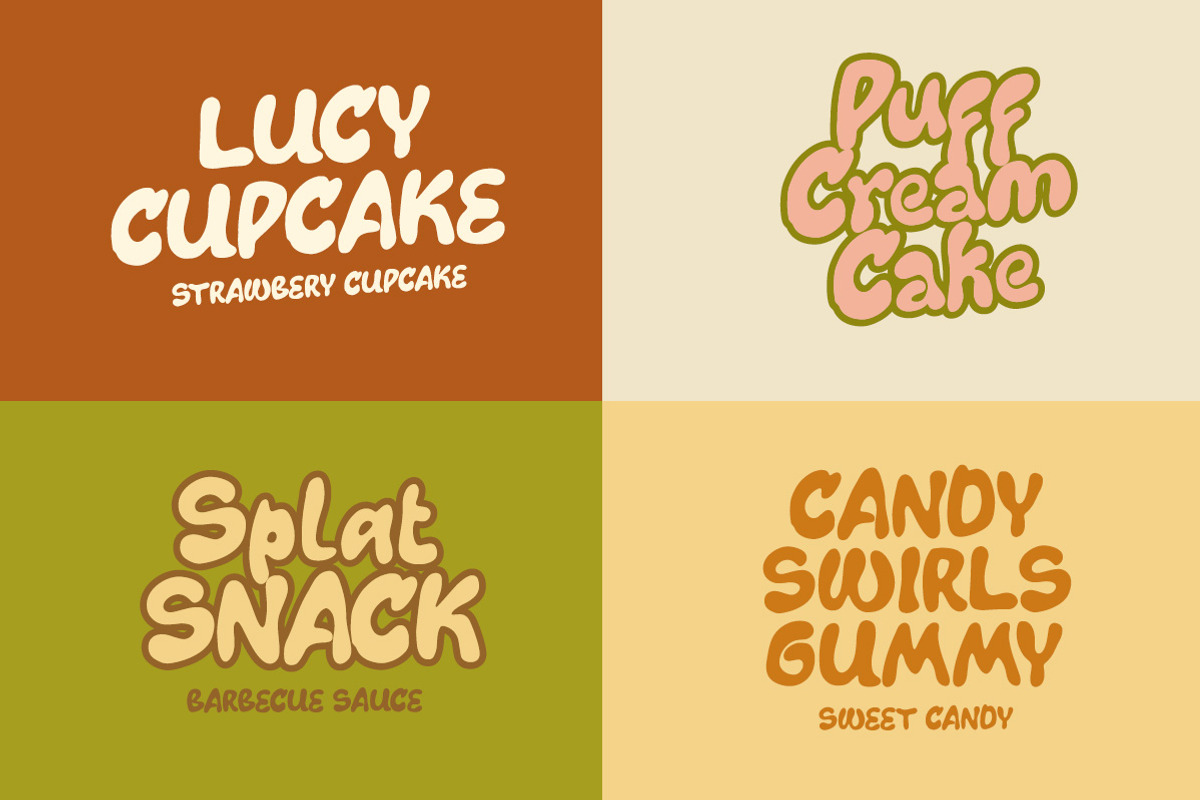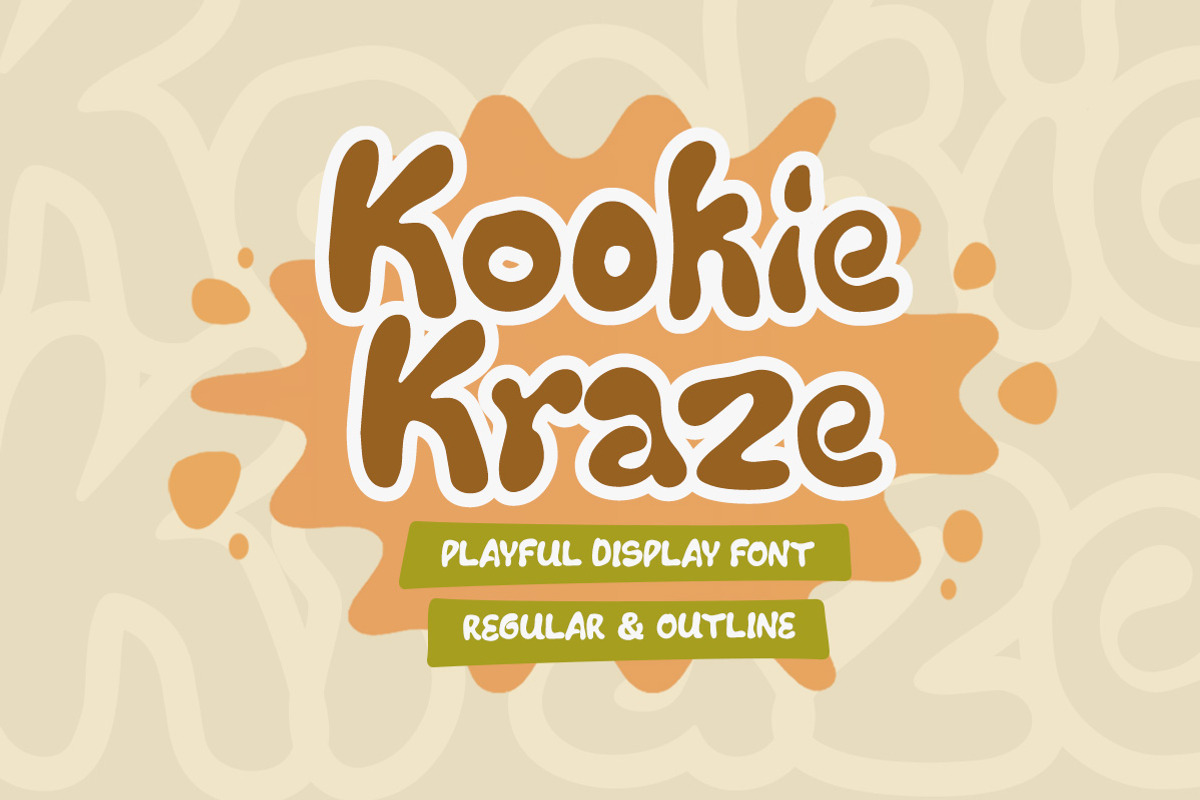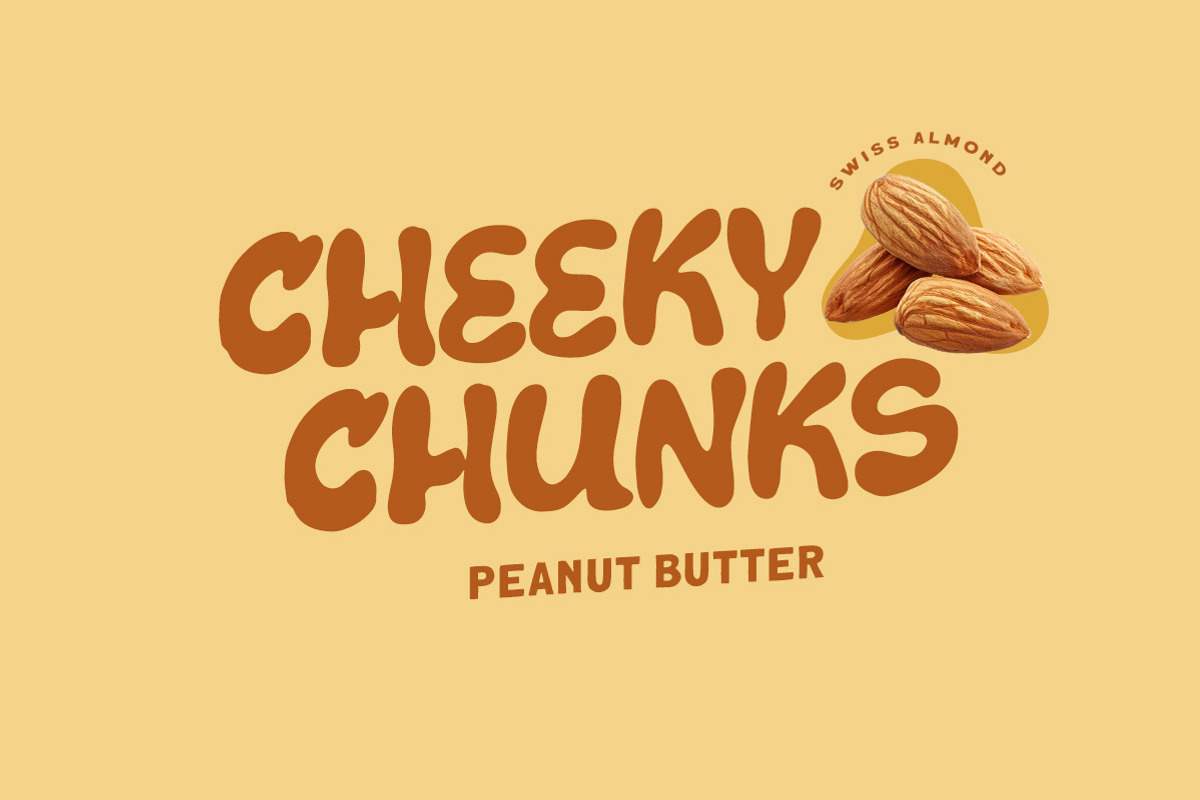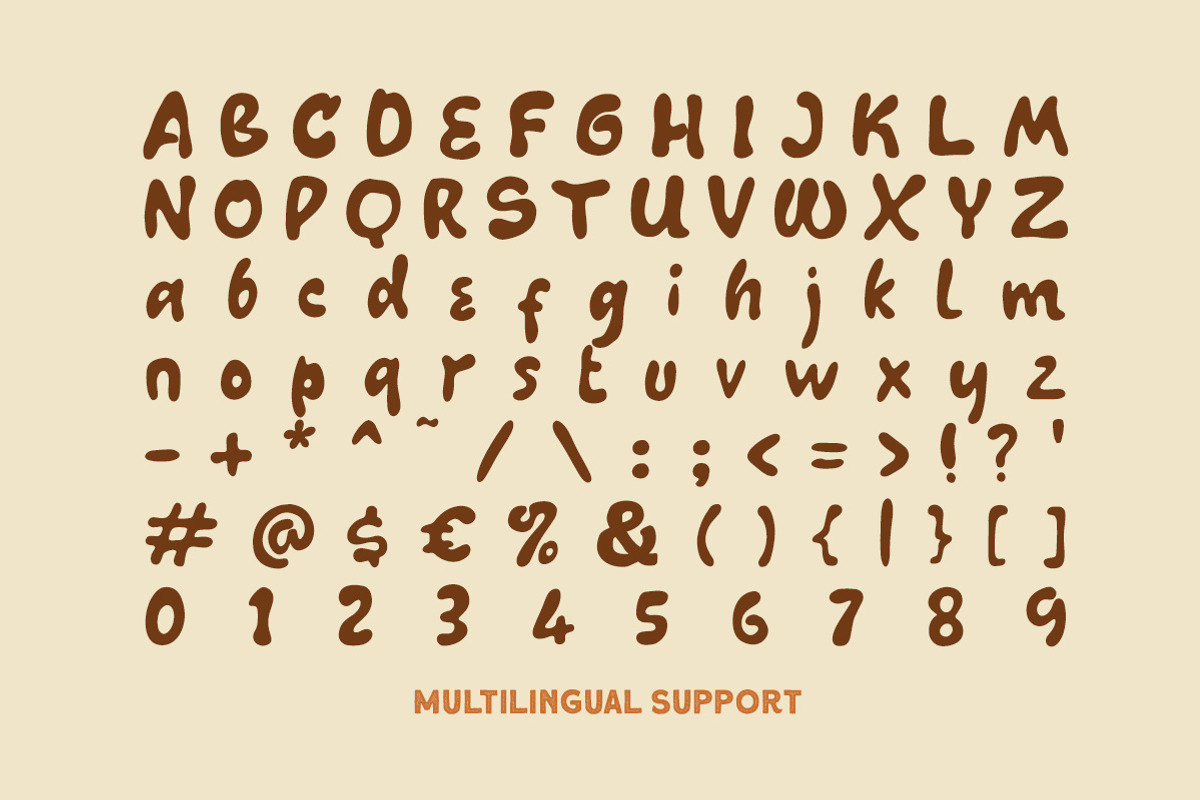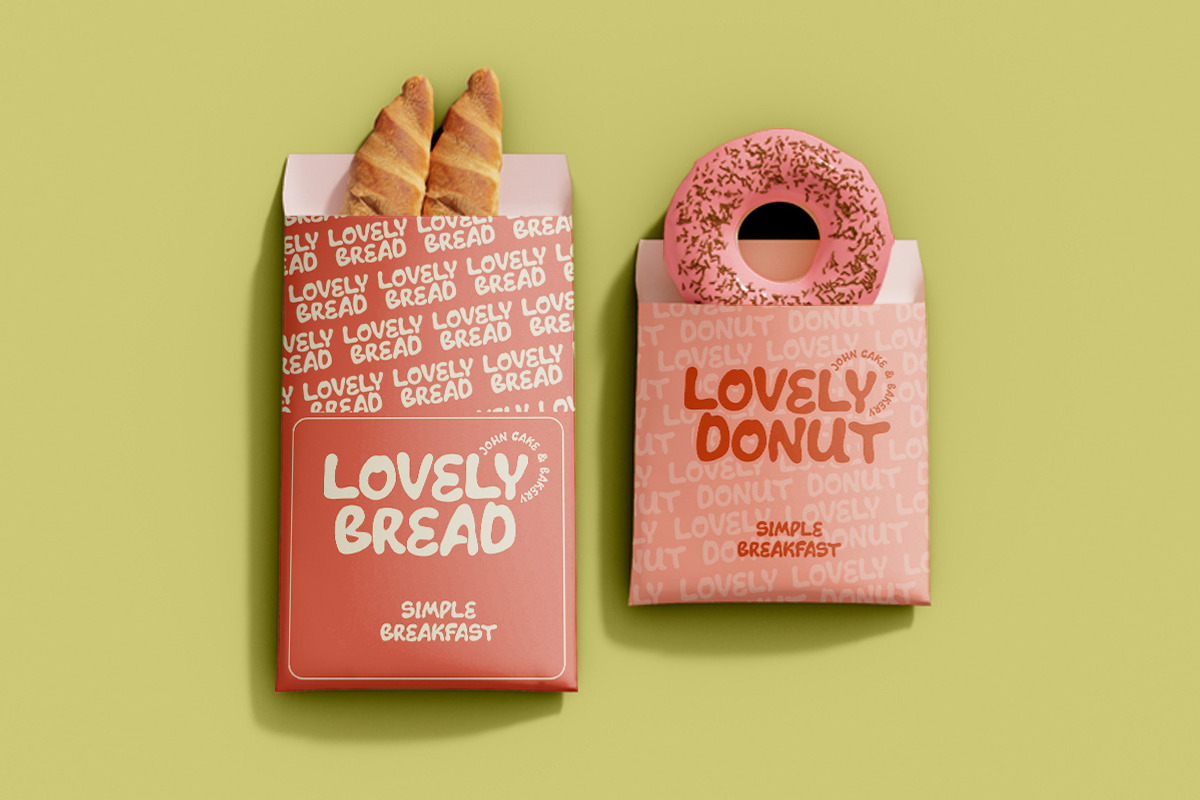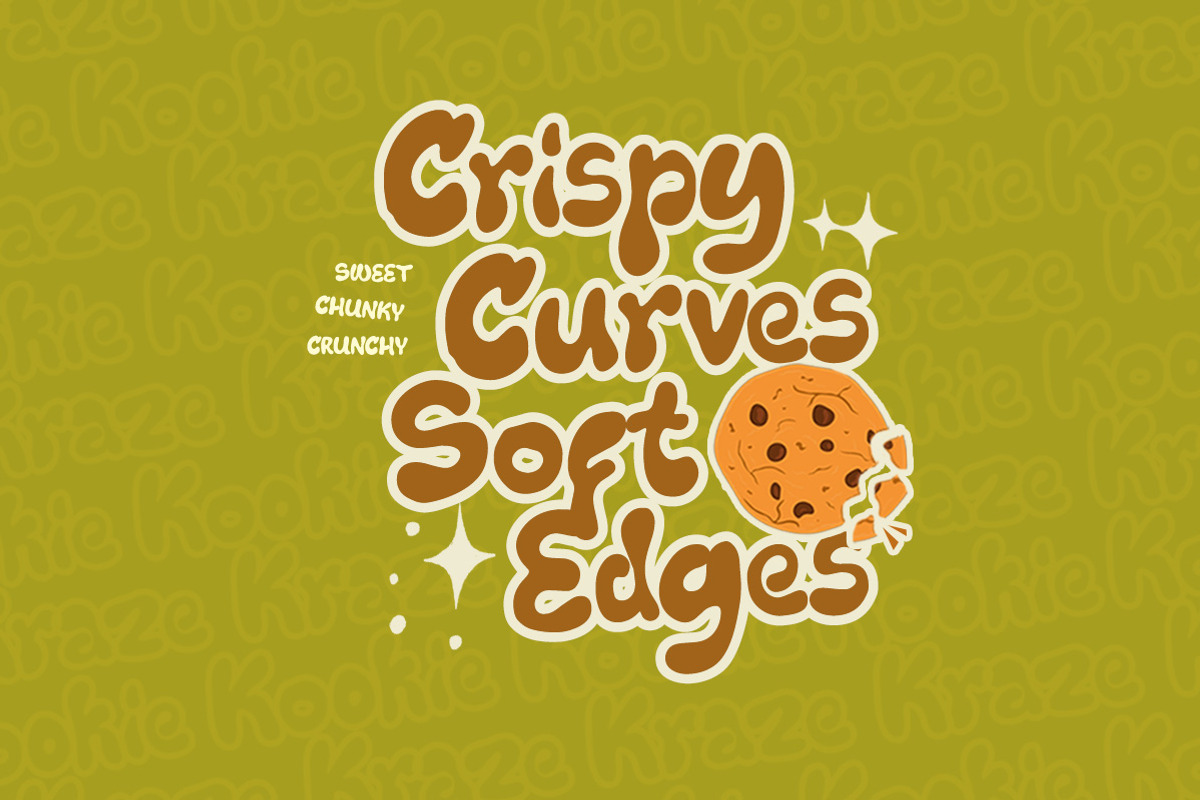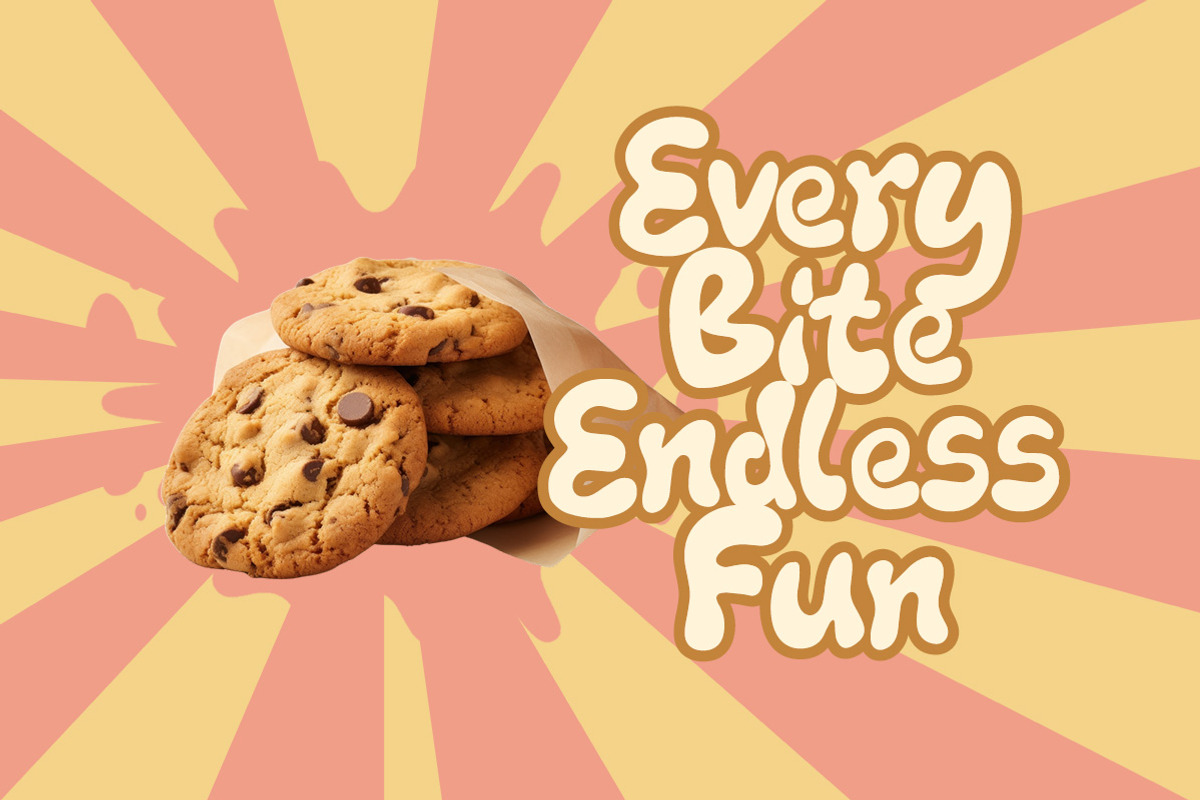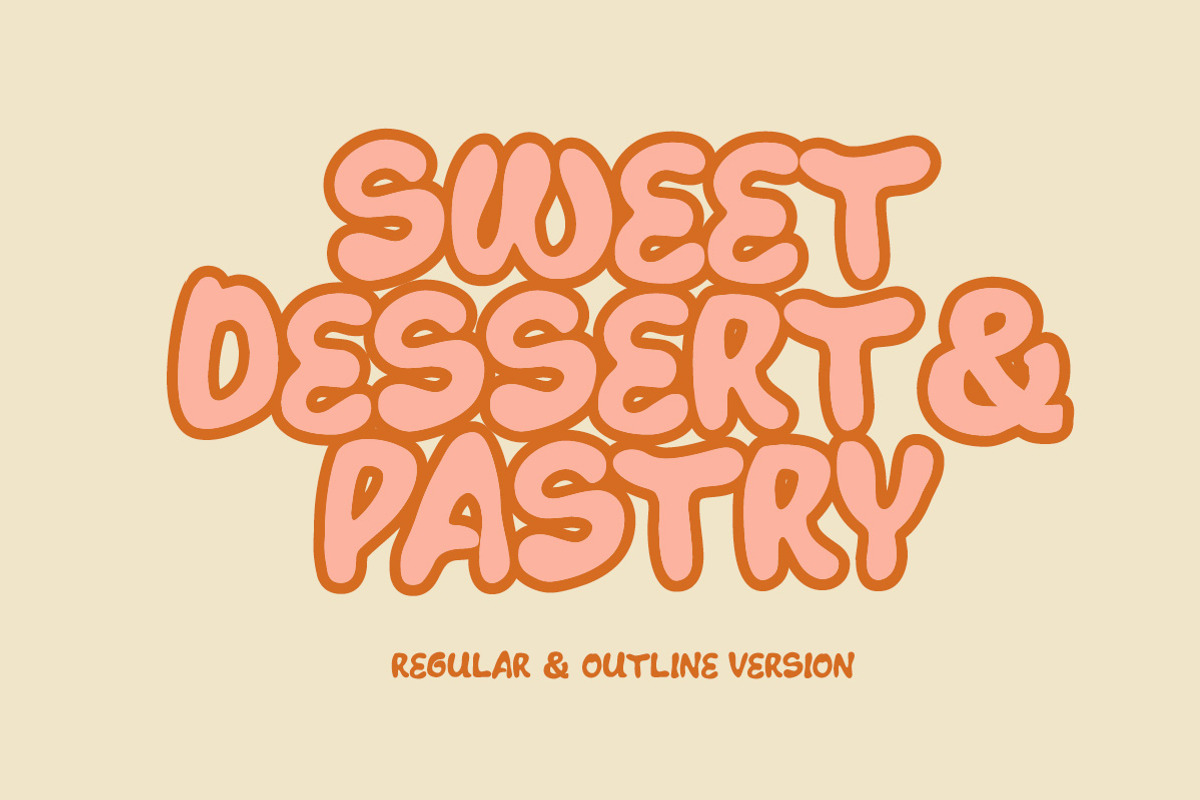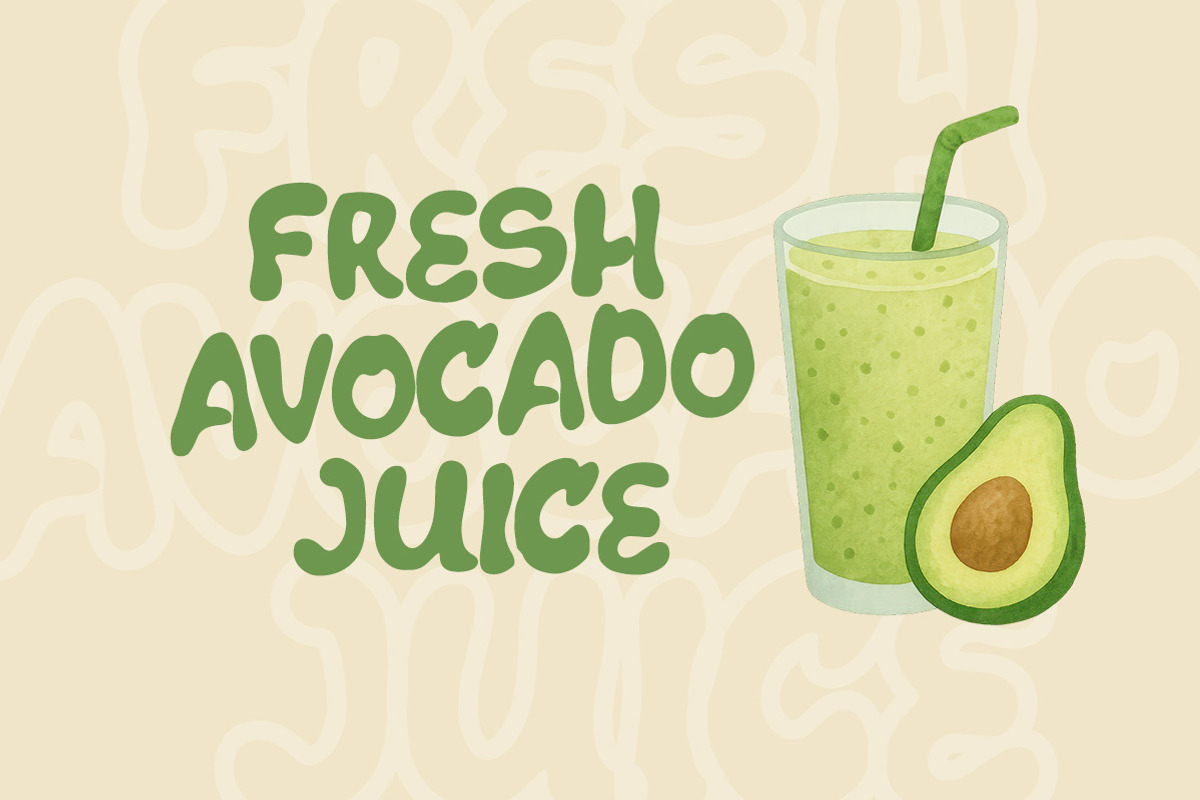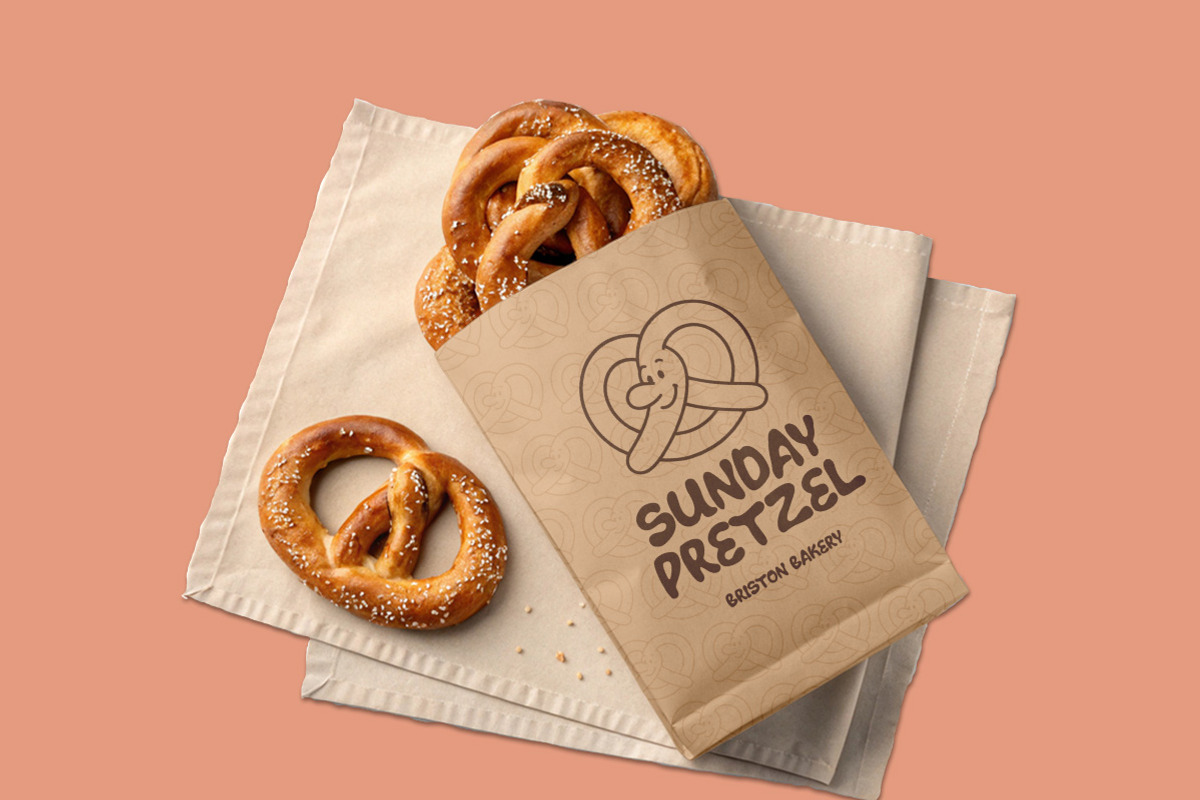
Kookie Kraze - Playful Display Font
Kookie Kraze is a fun and chunky display font that bursts with playful energy. With its soft rounded shapes and friendly curves, this font is perfect for projects that need a lighthearted and cheerful vibe—think kids’ designs, food packaging, playful branding, posters, or social media graphics. It comes in Regular and Outline styles, giving you flexibility to mix and match while keeping the same quirky, approachable personality.